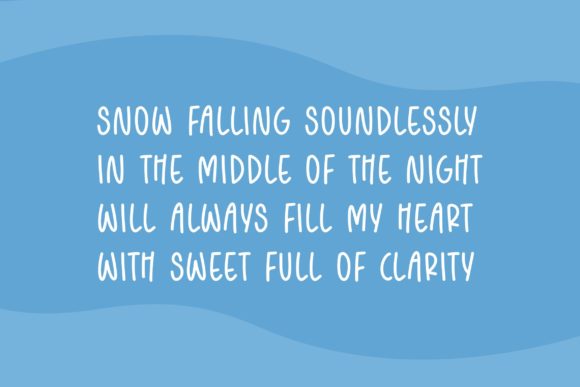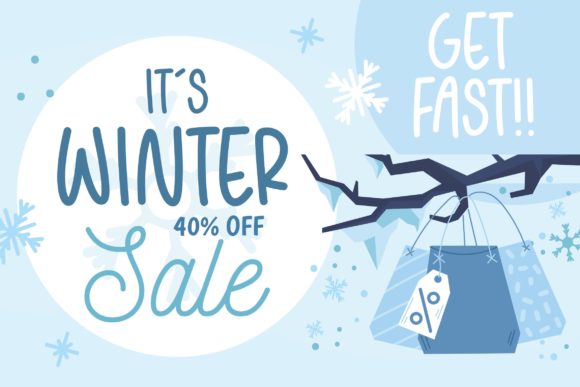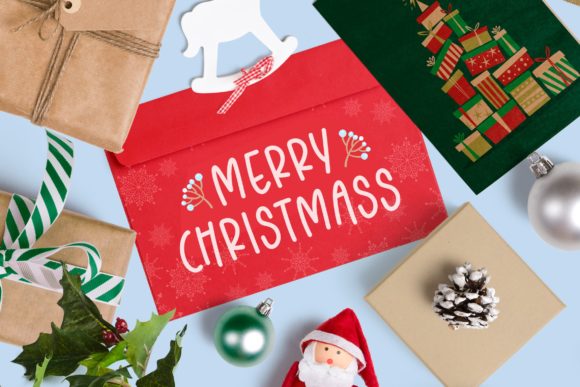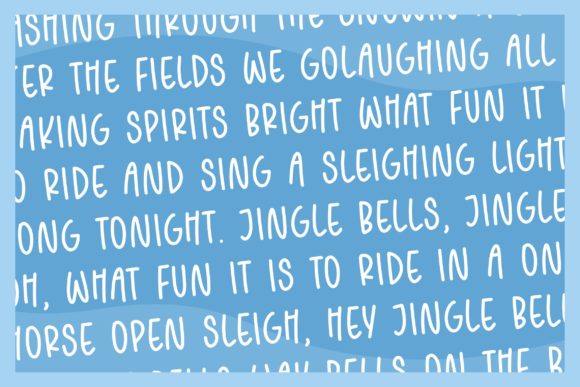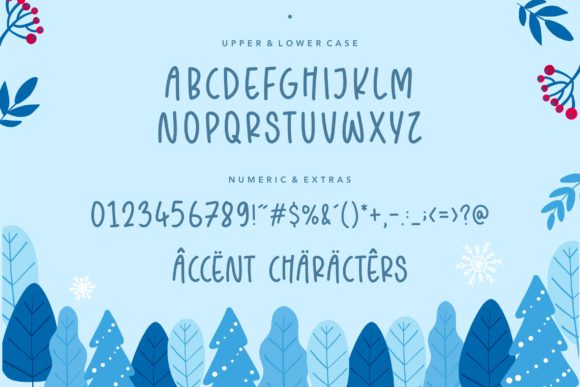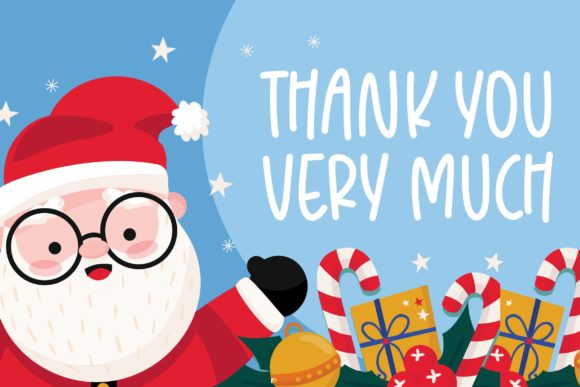
Introduction to Snowbreak Font
As the snowflakes gently fall outside your window, the perfect font to capture the magic of the season is just a click away. You’ve spent hours brainstorming ideas for your winter design project, pouring over design resources, and searching for the perfect font to bring it all together. That’s when you stumble upon the Snowbreak Font – a modern and casual handwritten font that’s about to become your go-to design companion.
| 👤 Author | Balpirick |
With its high-quality, free download, the Snowbreak Font is an invaluable resource for any designer looking to add a trendy touch to their creative project. Whether you’re working on a winter-themed design or simply want to inject some personality into your branding, this font is sure to make a statement. And with its transparent background, you can easily layer it over your design without any fuss.
Key Features of Snowbreak Font
- Transparent Background: The Snowbreak Font features a transparent background, making it ideal for creative projects where a clean and minimalist design is desired.
- High Quality Design: This font is designed with high-quality graphics, resulting in crisp and clear text that is perfect for any design resource.
- Large Character Set: The Snowbreak Font features a large character set, including uppercase and lowercase letters, numbers, and punctuation marks, making it suitable for a wide range of creative projects.
- High Resolution: The font is designed at a high resolution of 300 DPI, ensuring that it looks great on both digital and printed materials.
- Perfect for Creative Projects: The unique characteristics and design of the Snowbreak Font make it an excellent choice for creative projects, including branding, advertising, and graphic design.
Honest Review: Snowbreak Font
I recently came across the Snowbreak Font, a free download that caught my eye. As a designer, I’m always on the lookout for high-quality design resources to elevate my creative projects. In this review, I’ll share my honest thoughts on what works well and what doesn’t.
- The Snowbreak Font has a unique and stylish aesthetic, perfect for adding a touch of sophistication to your design.
- The font is highly customizable, with various weights and styles to choose from.
- The font may not be suitable for designs with transparent backgrounds, as it can become difficult to read.
- The style may be too bold for some projects, so it’s essential to use it thoughtfully.
Overall, the Snowbreak Font is a solid addition to any designer’s toolkit. While it has some limitations, its unique style and high quality make it a valuable resource for creative projects. With a little creativity and experimentation, you can unlock the full potential of this font and take your designs to the next level.
The Snowbreak Font is a high-quality design resource perfect for adding a touch of elegance to your creative project. This free download features a transparent background, making it ideal for use in various design applications.
For best results, use the Snowbreak Font in conjunction with a high-quality image or background. Experiment with different font sizes and styles to add depth and visual interest to your design.
The Snowbreak Font is perfect for use in a variety of creative projects, including social media graphics, presentations, and print materials. Its elegant design and transparent background make it a versatile design resource for any project.
Can I use the Snowbreak Font for web design, with a transparent background?
Yes, the Snowbreak Font is designed to work seamlessly with transparent backgrounds. This makes it an ideal choice for web design, where you can overlay the font on images or other design elements. Simply use the transparent background version of the font, and you’re good to go!